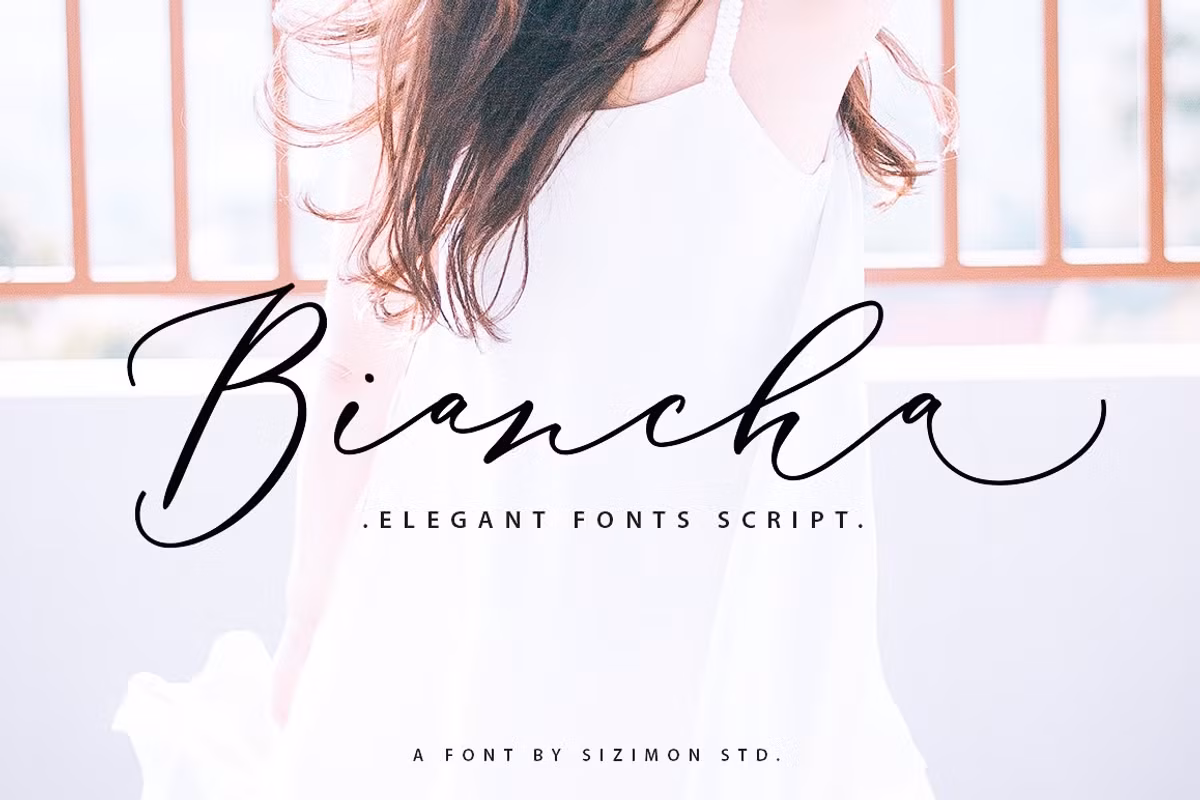
Elegant, flowing, and full of charm, Biancha Script Font Free Download is a stylish handwritten script perfect for adding a touch of sophistication to your designs. Whether you're working on wedding invitations, branding, social media graphics, or product packaging, Biancha brings a romantic and refined flair.
Its graceful curves, smooth baseline, and natural rhythm make it both beautiful and legible. With a selection of ligatures and stylistic alternates, Biancha gives you creative freedom to craft personalized and polished typography.